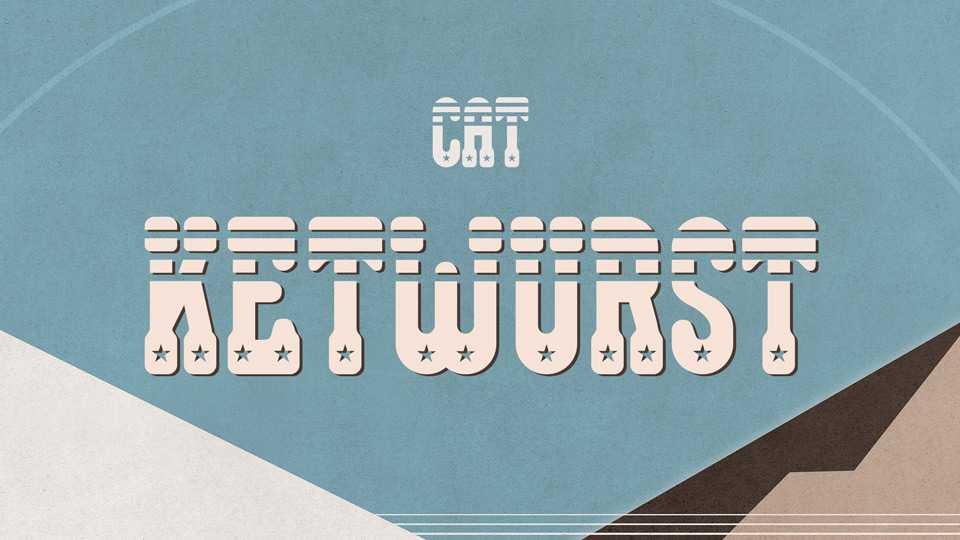
Download Ketwurst font, a decorative vintage display typeface, based on a photo from the 1970s of a then new type of foil lettering for a snack bar restaurant.